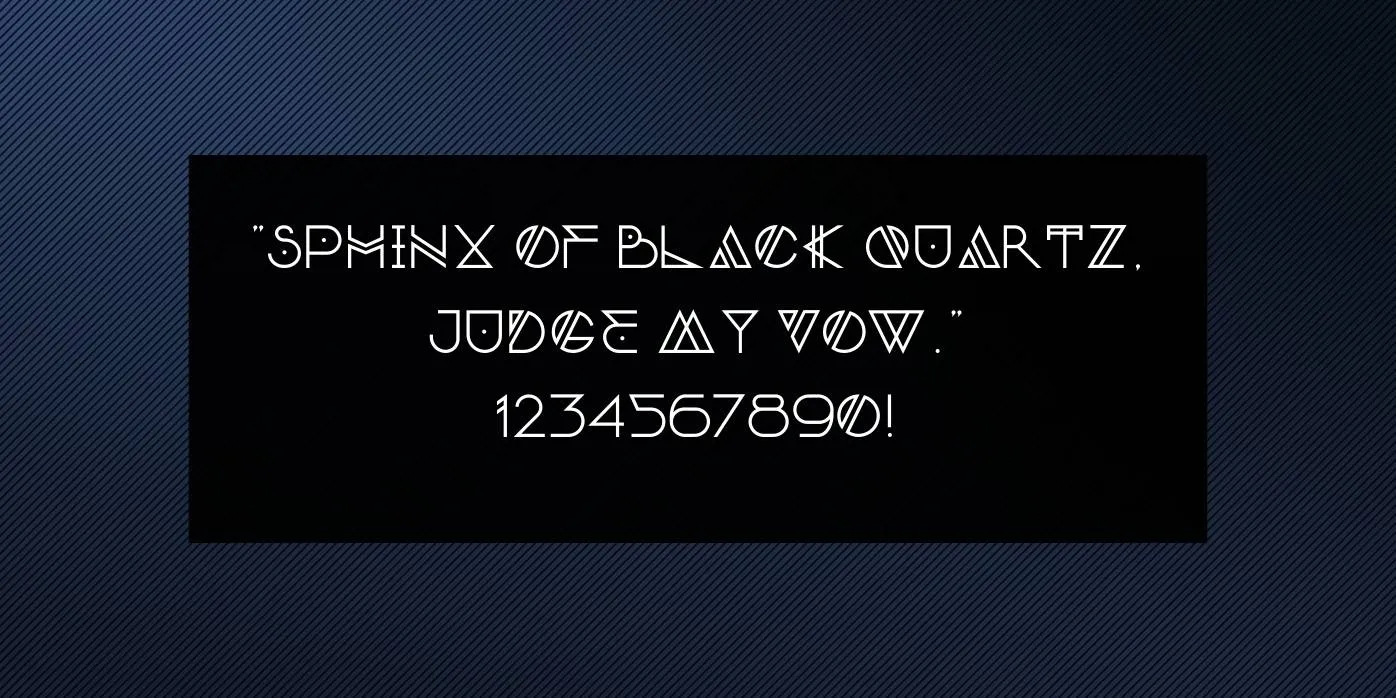
Nordic Font
Nordic Font is a fancy typeface commonly used for writing in the Norwegian, Danish, Swedish, Icelandic, and Faroese languages. It is also used in Finland for the Sami language. The name comes from the fact that the first fonts were created in Scandinavia. This Font was created in the early 20th century by Norwegian designer Thorolf Holmboe.
The first Nordic Font was released in 1901. It was called Nordisk Skrifttype, or Nordic Typeface. Thorolf Holmboe’s Nordic Font typeface was inspired by the National romantic style of the late 19th century. This style was characterized by its use of naturalistic and folkloric motifs.
For more advanced uses, you need to use bodoni font by making a combination with this family. This is not a google typeface but it is also easily utilized in Canva software. This typeface was used extensively in Nordic countries during the first half of the 20th century. They were used for everything from road signs to posters and books.